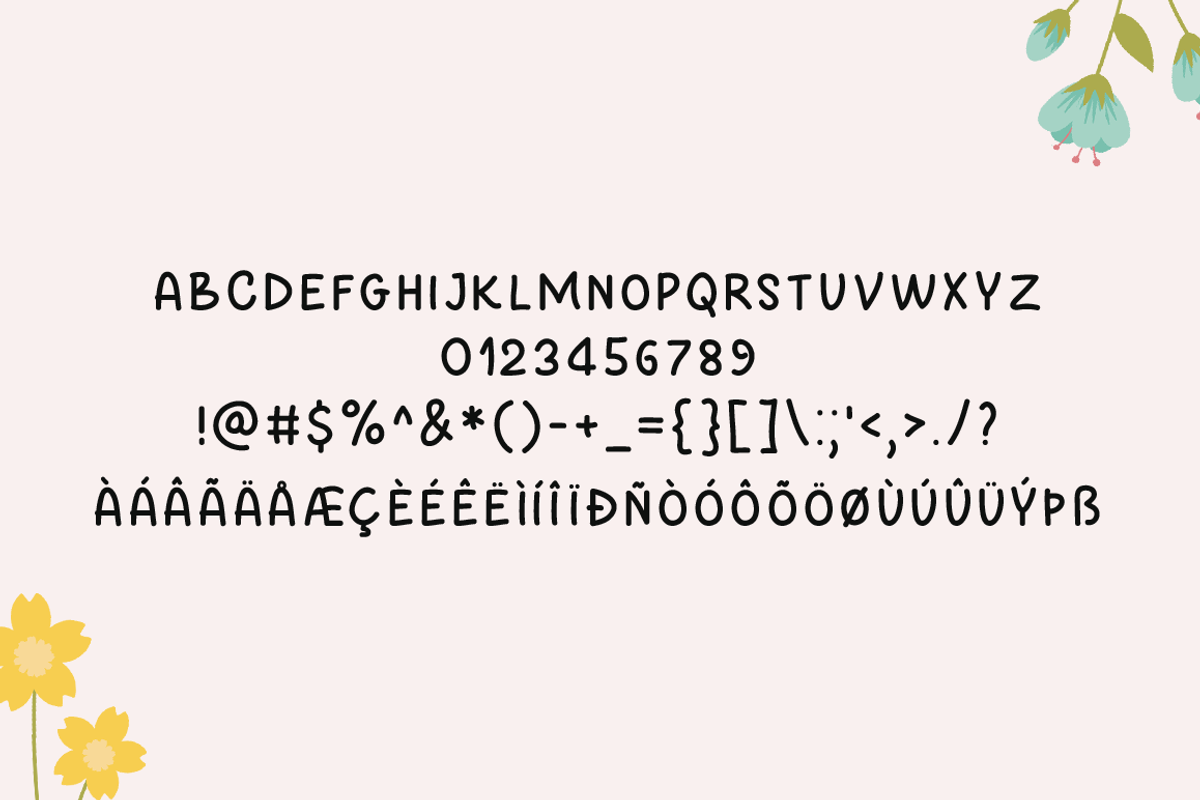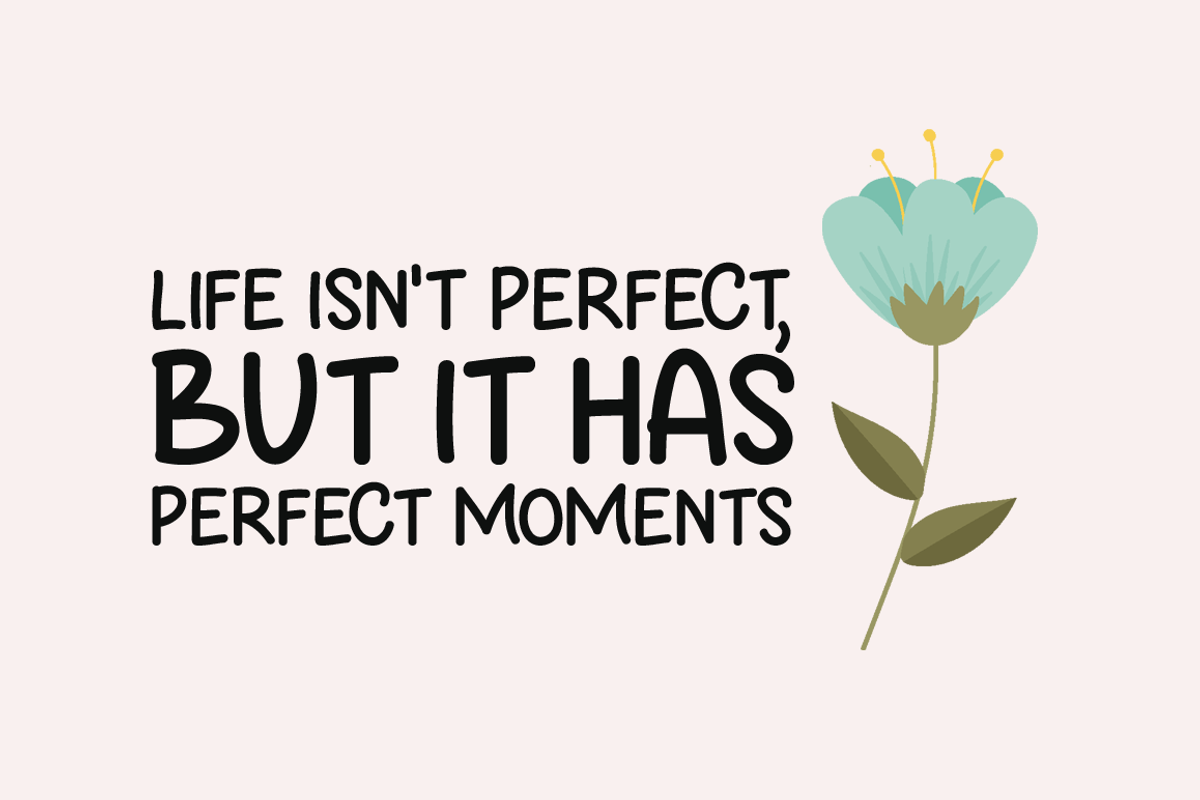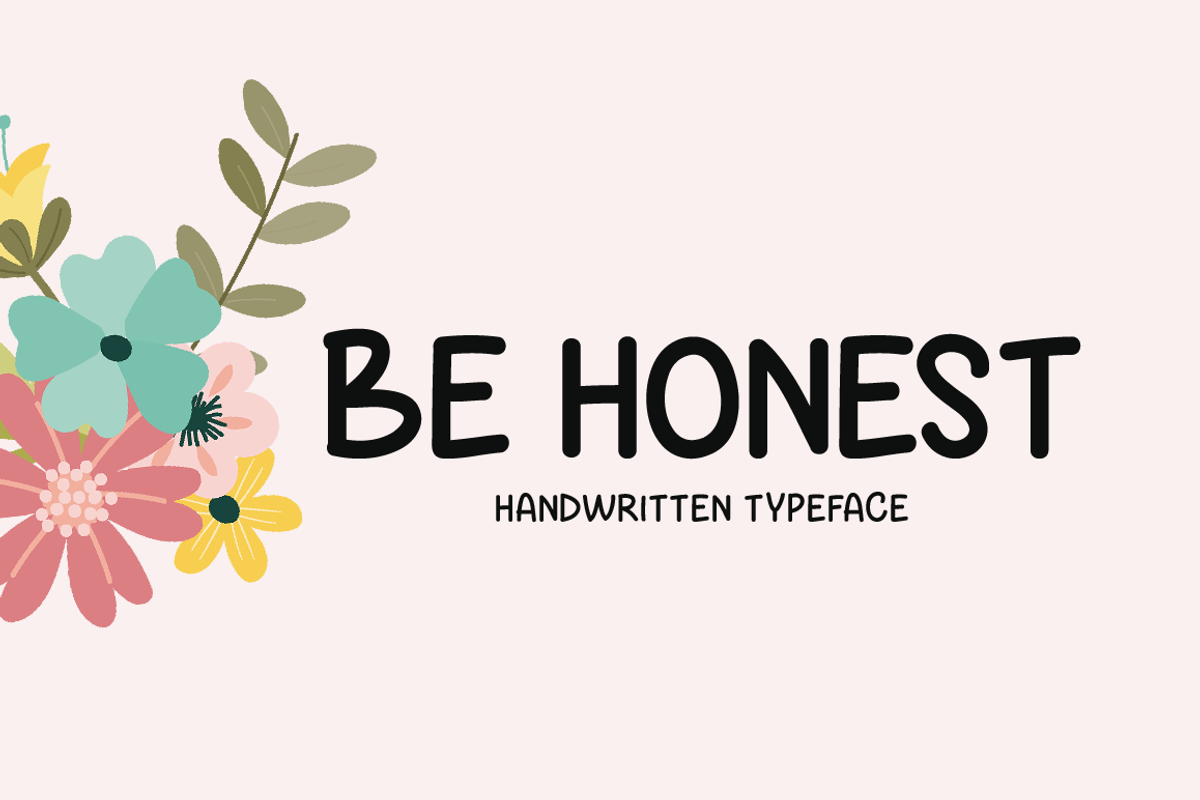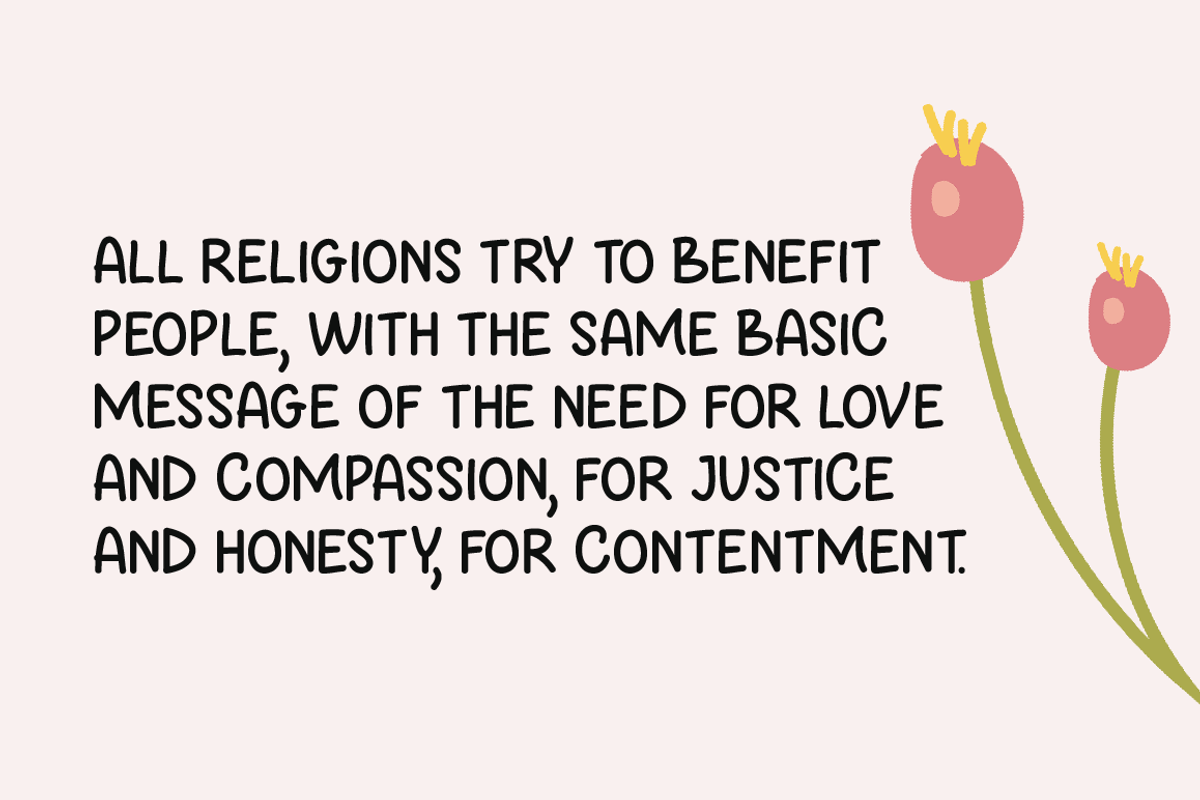
Be Honest Typeface
Introducing Be Honest!
Be Honest is a brand new handwritten font. Be Honest is perfectly suited for stationery, logos, t-shirt, paper, print design, website header, photo frame, flyer, music cover, poster, image slider and much more.
Includes a range of multilingual support